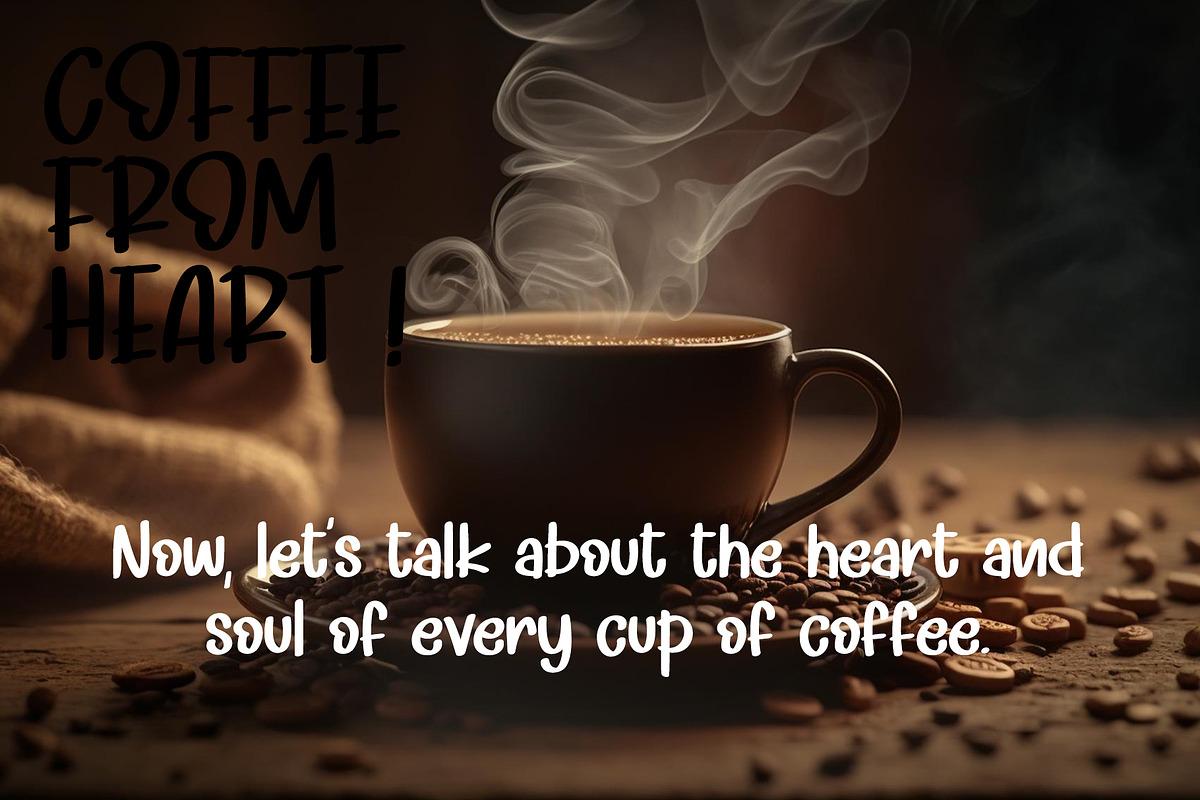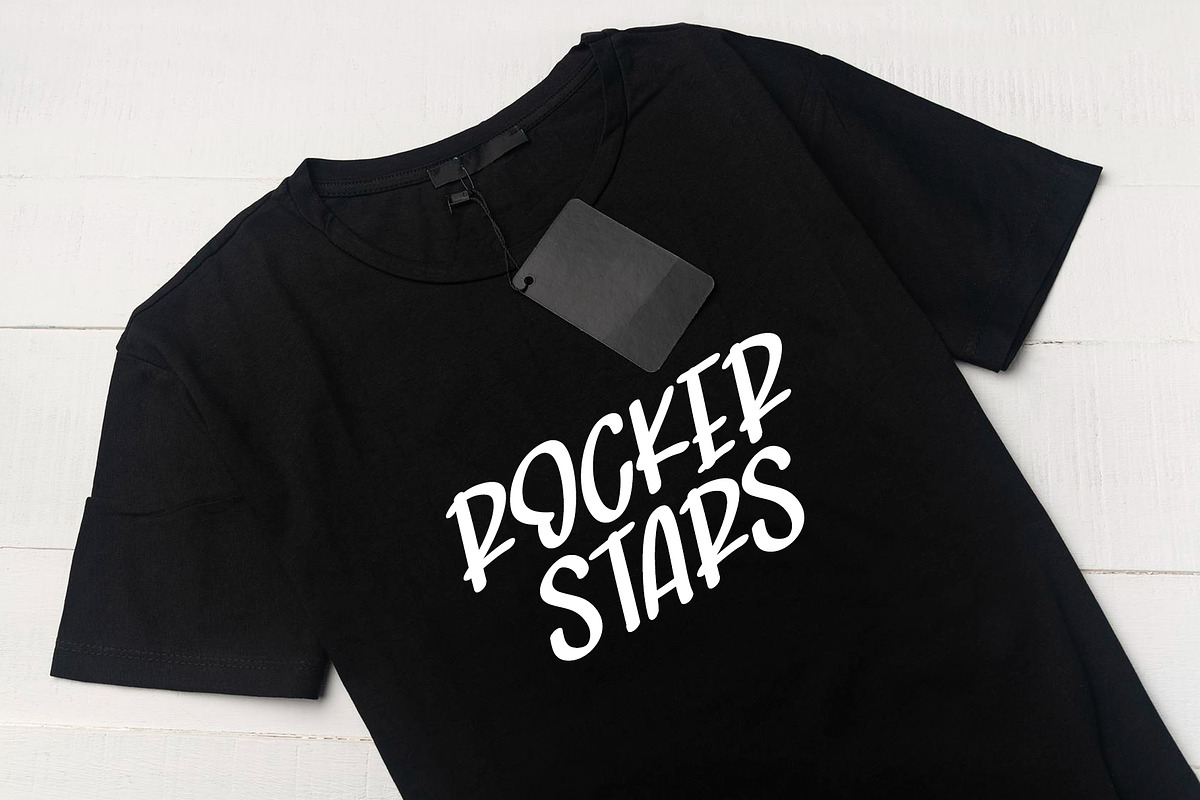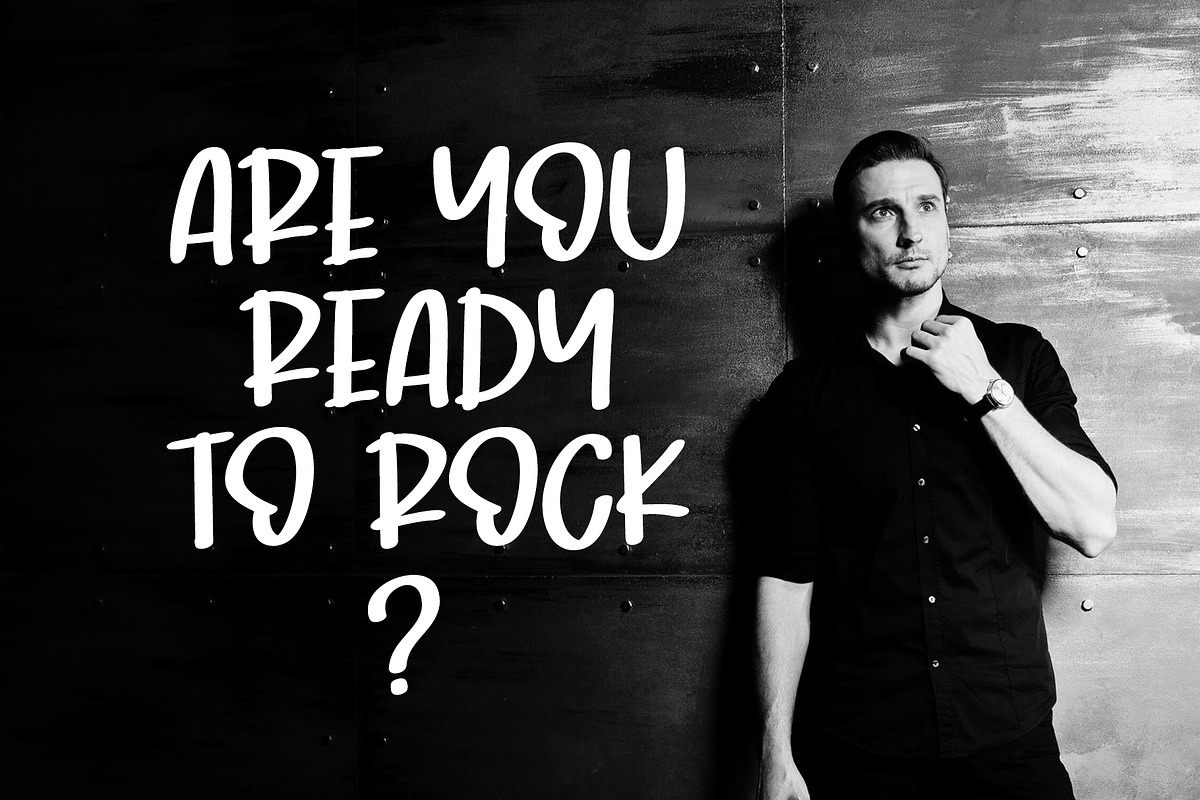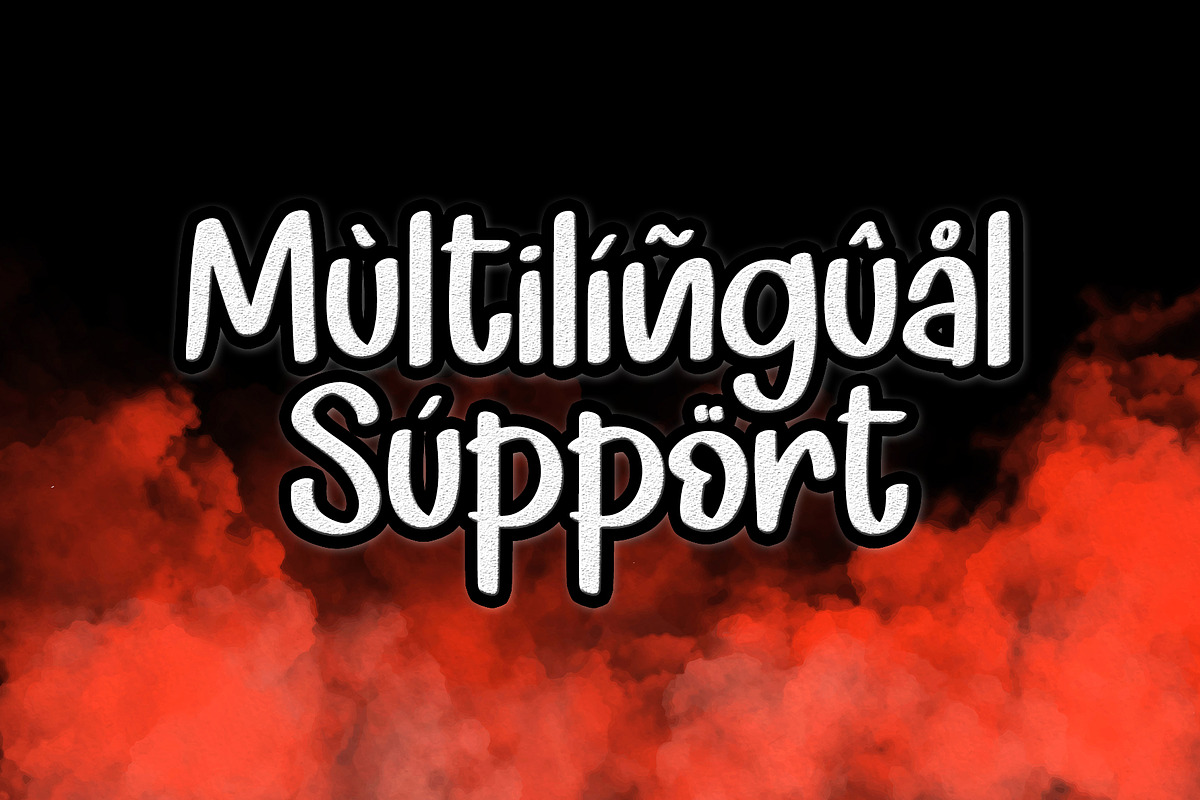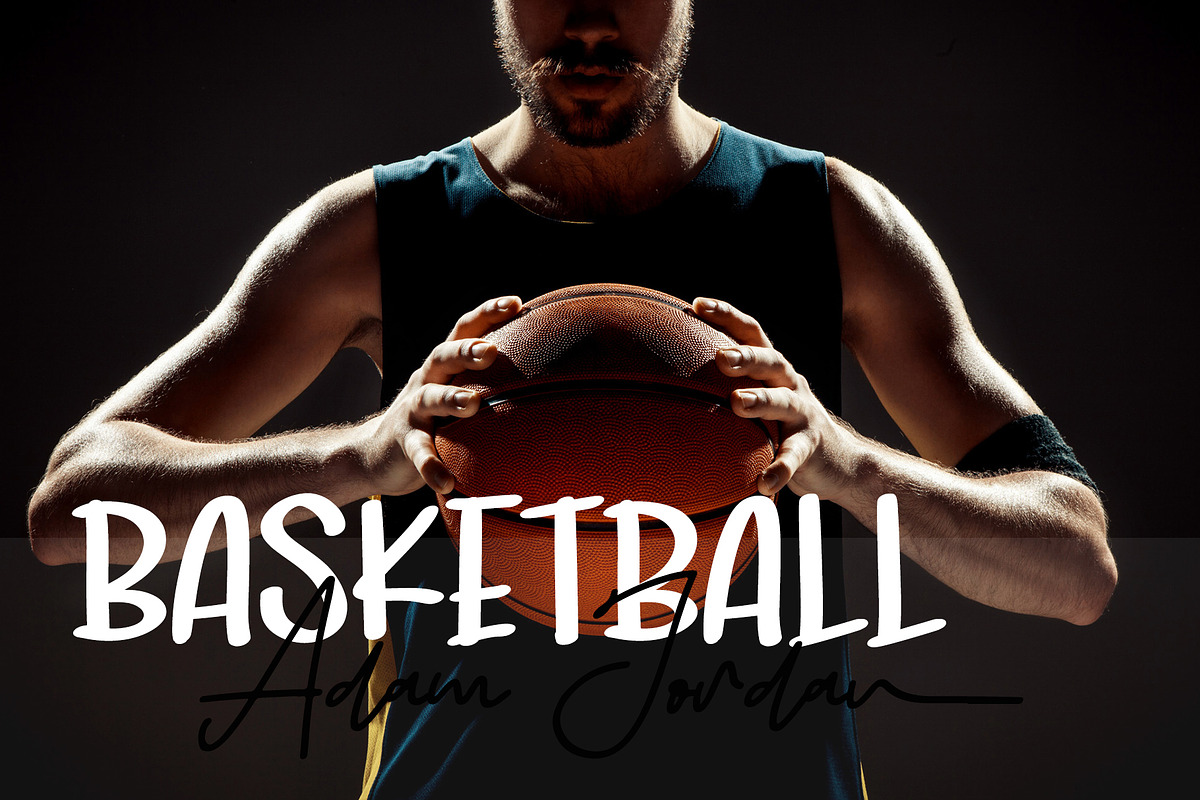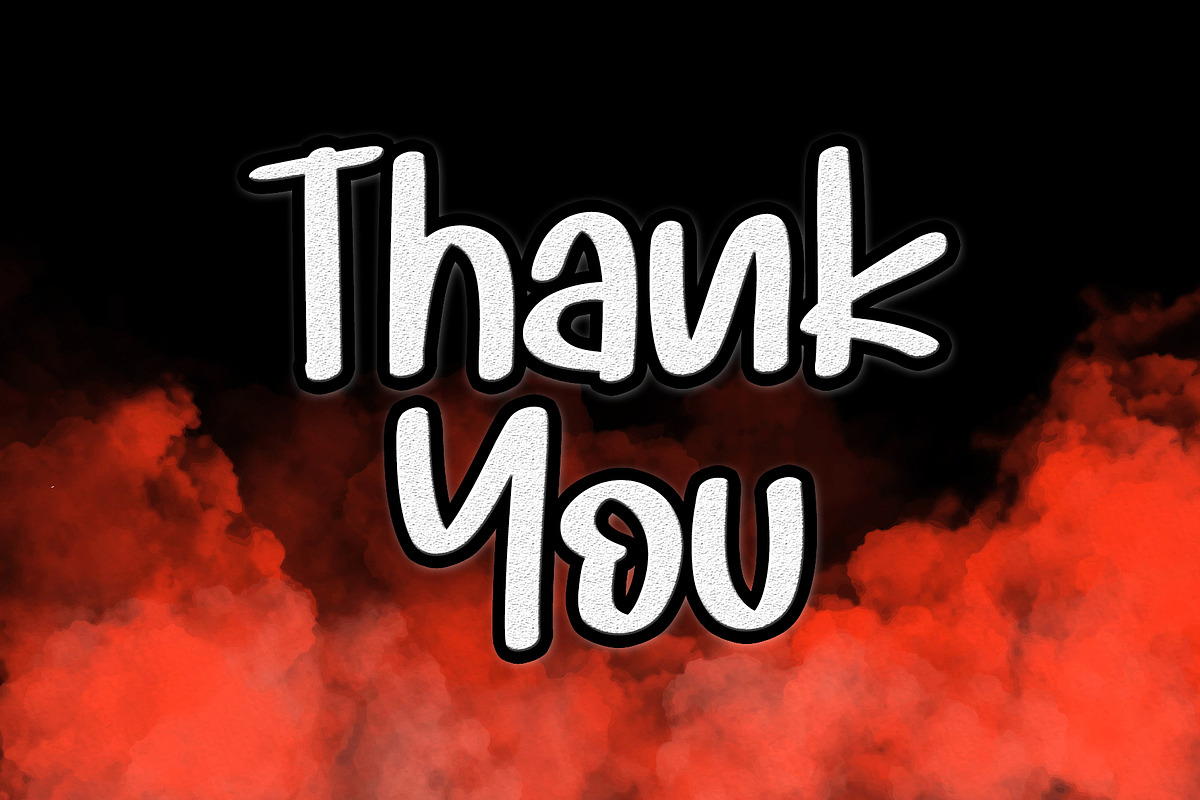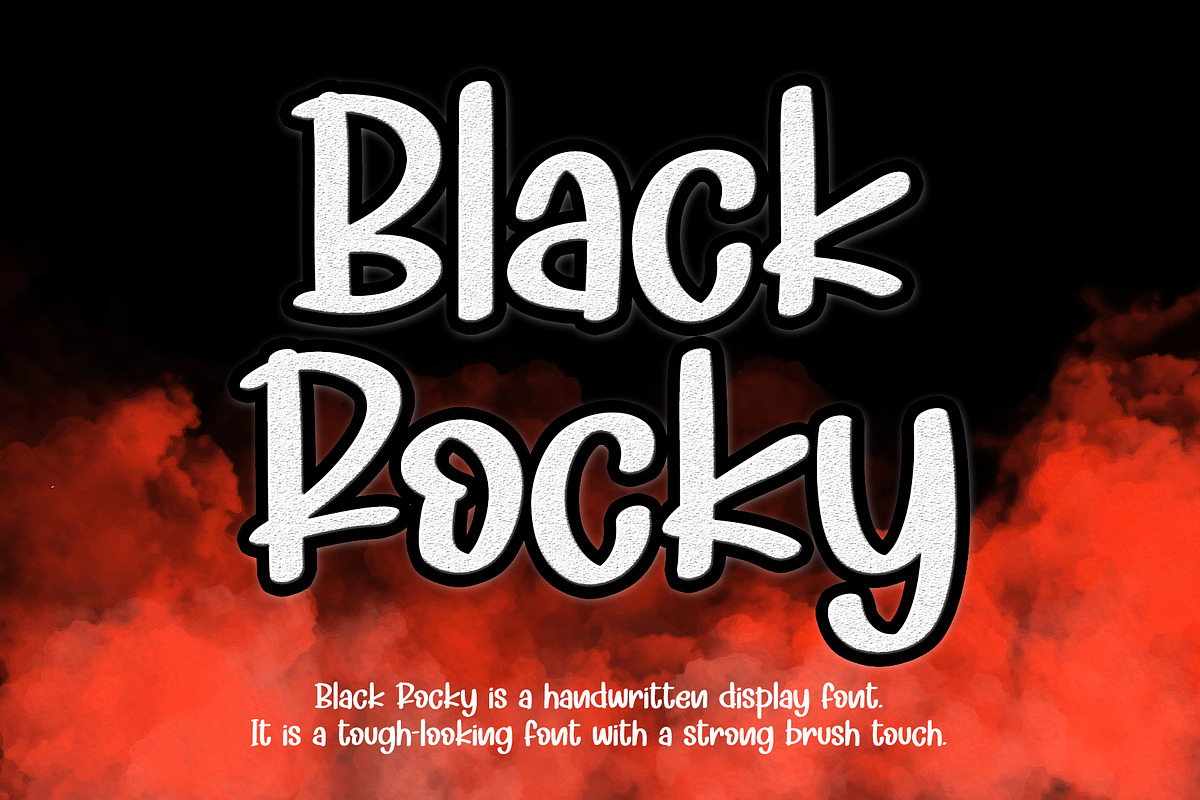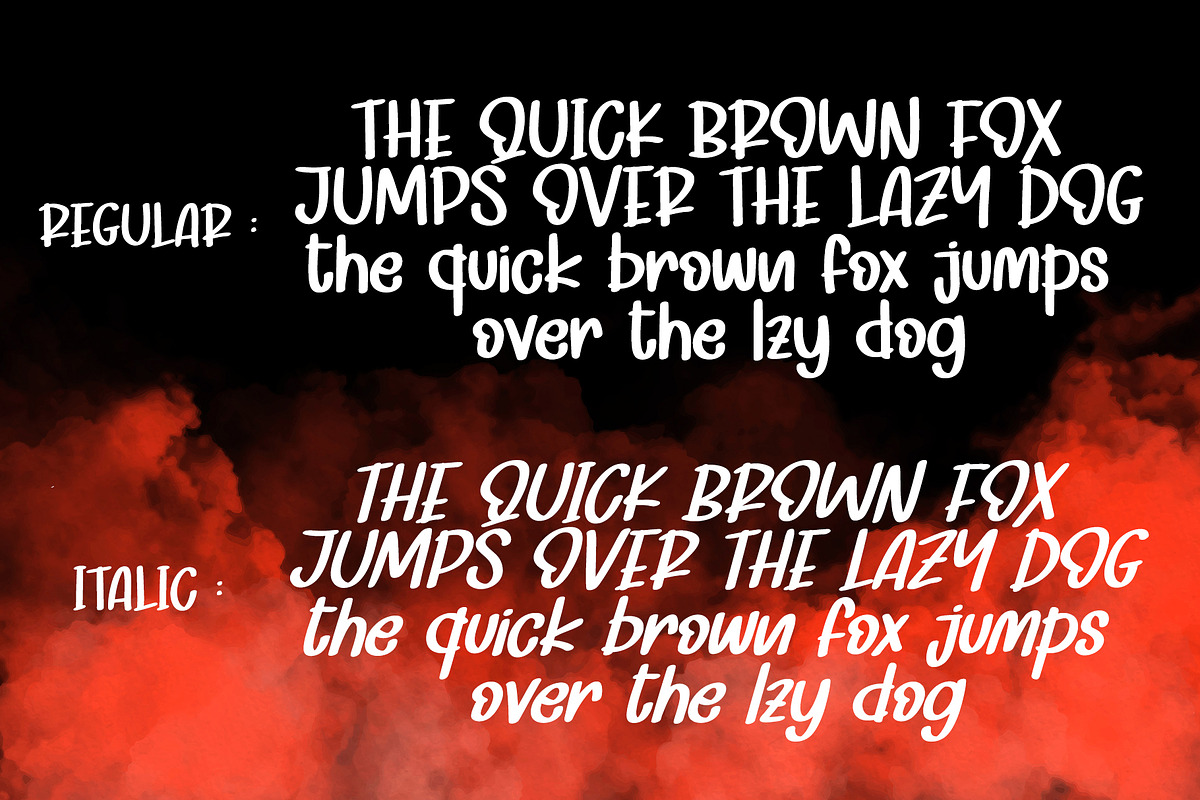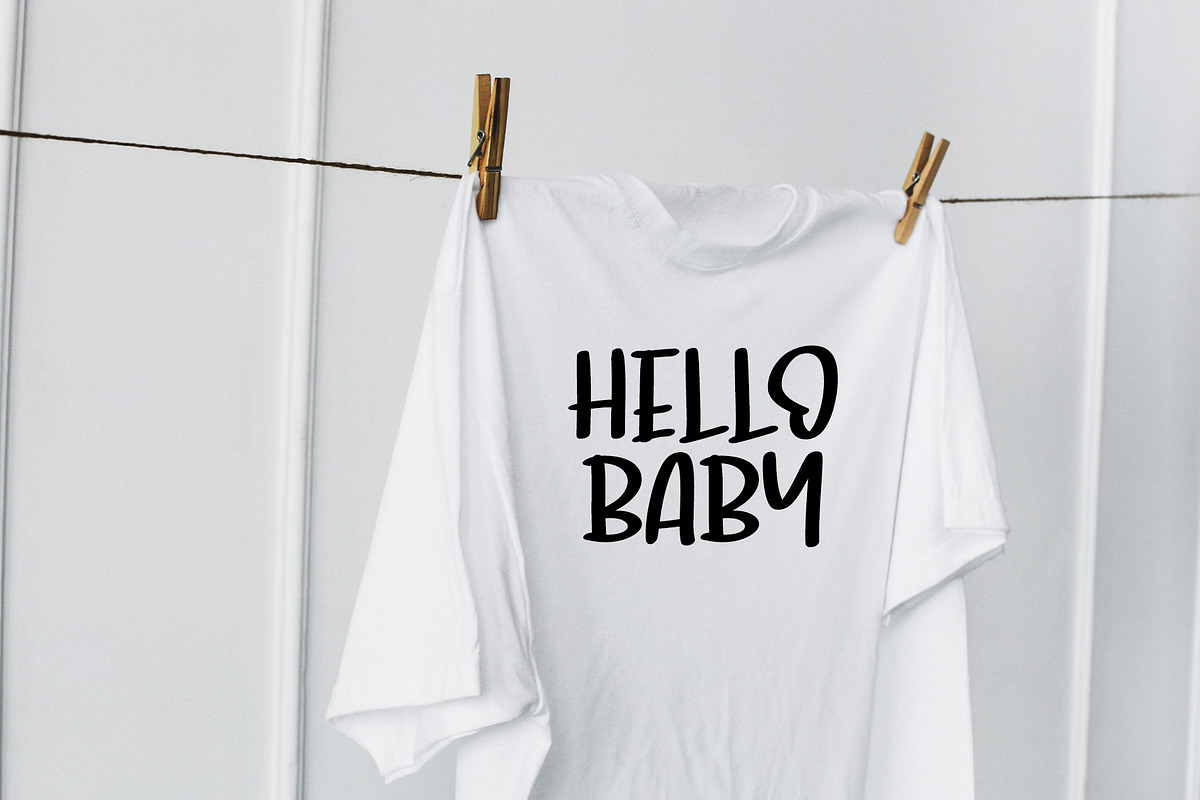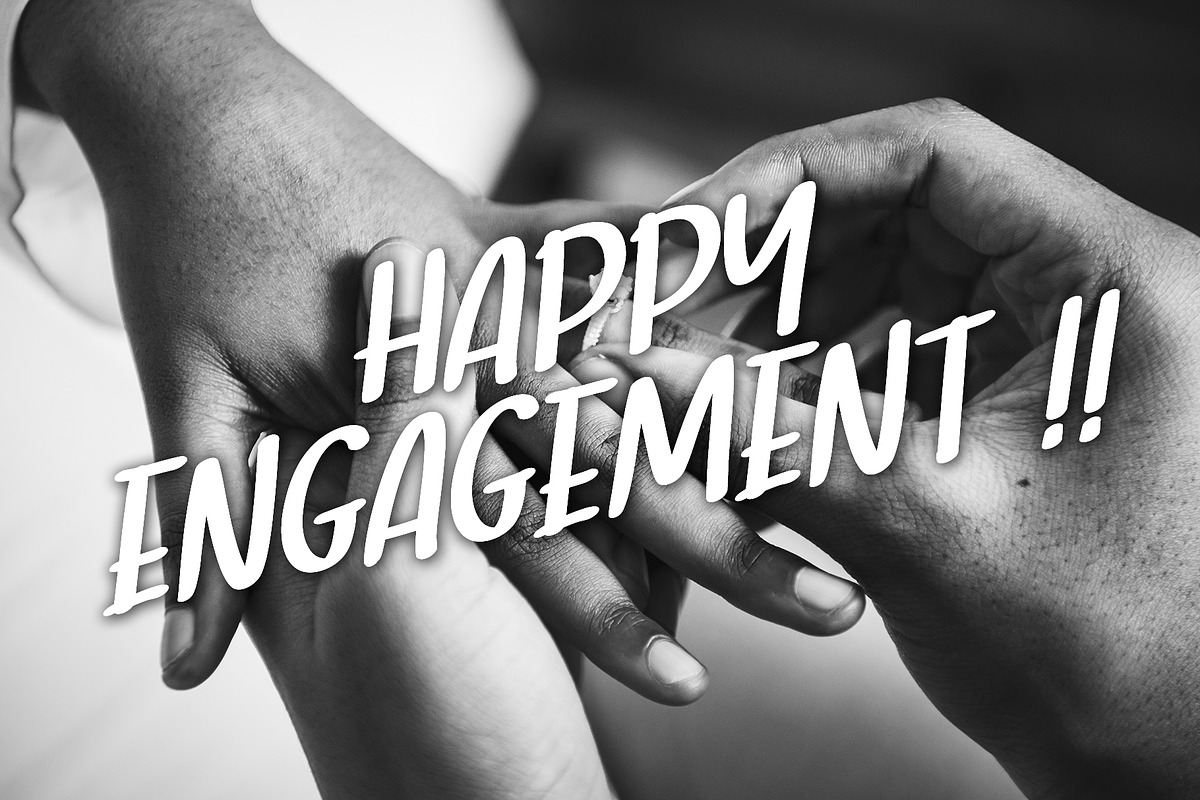
Black Rocky
Black Rocky is a handwritten display font. It is a tough-looking font with a strong brush touch, ready to rock every design you want to create. It is perfect for logos, quotes, posters, clothing, and so much more! Add it to any of your creative projects, and be amazed by the generated outcome!